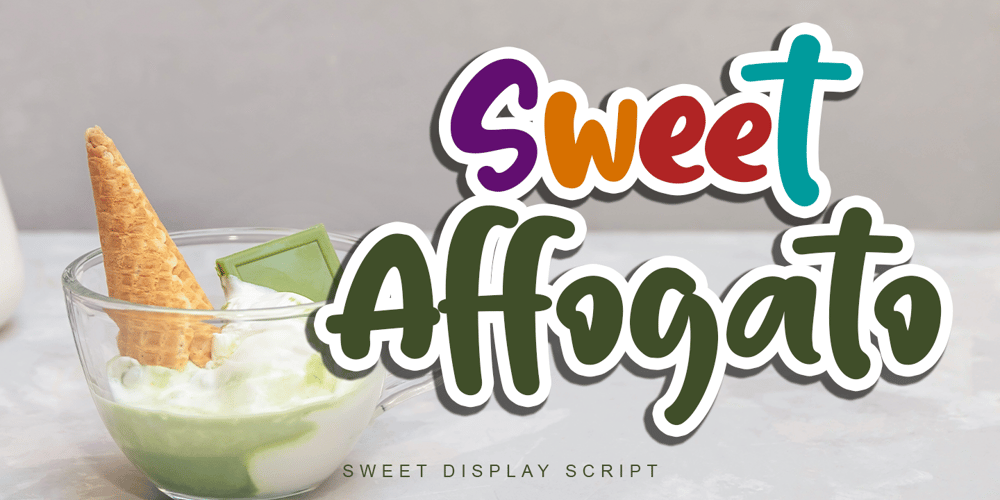
Sweet Affogato Font Family was designed by Stefani Tri Rosa Setiati Christiana and published by Stefani Letter. Sweet Affogato contains 2 styles and family package options. Sweet Affogato is a fun and cute display font. It has a playful style and great readability. It’s perfect for Christmas cards, branding, stationery, blog design, custom art, custom stamps, custom embossers, book, apparel, packaging, headline, or much more! It will add a unique feel and looks stunning to any design project! This font is PUA encoded which means you can access all of the cute glyphs with ease! It also features a wealth of including ligatures.